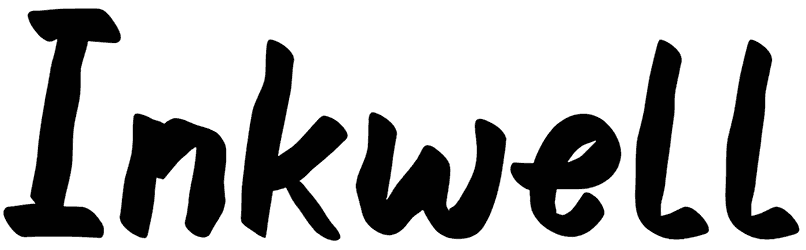
Inkwell Font
When it comes to making a successful product that will appeal to many people as soon as possible, the script font, Inkwell is a useful tool because it brings your design to the forefront in every way.